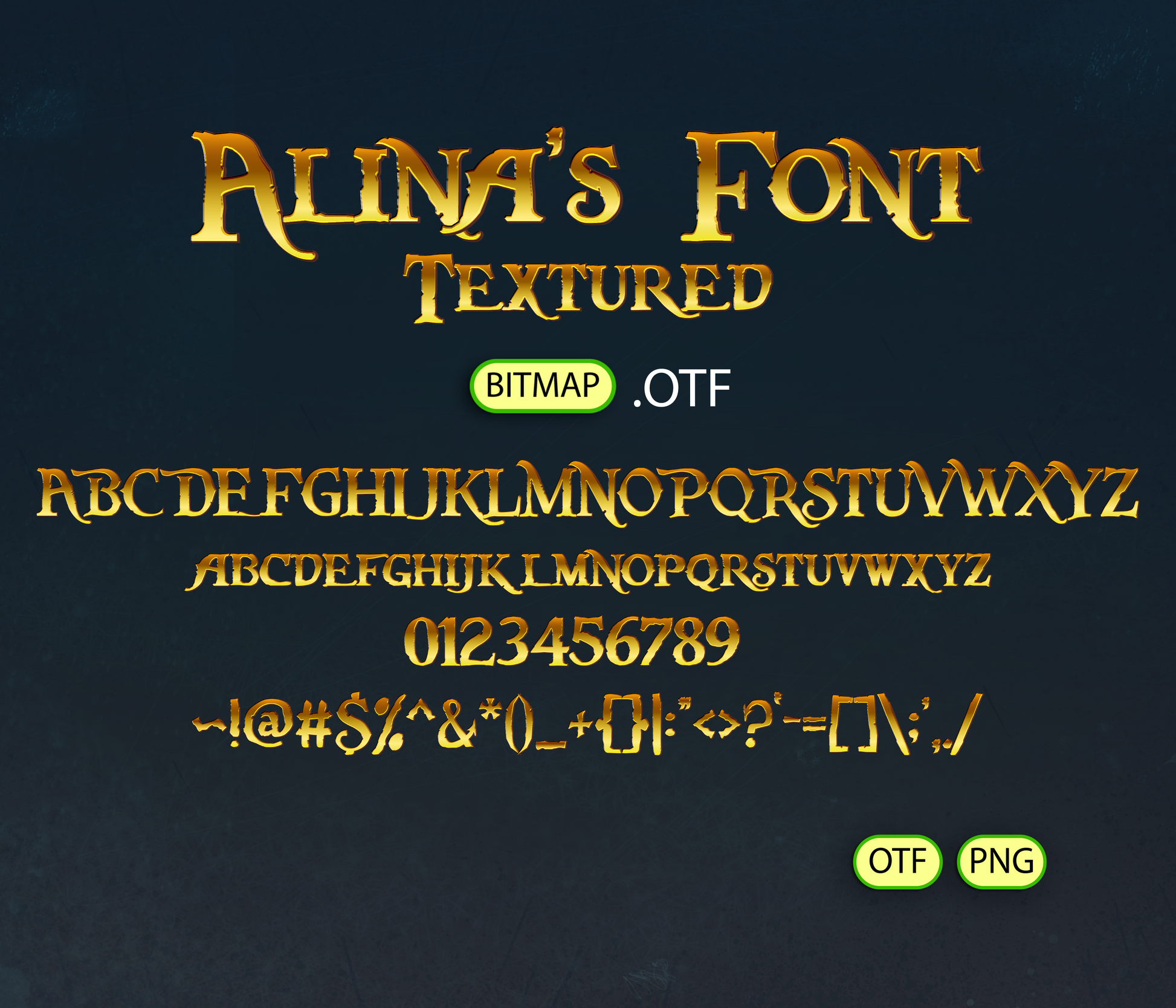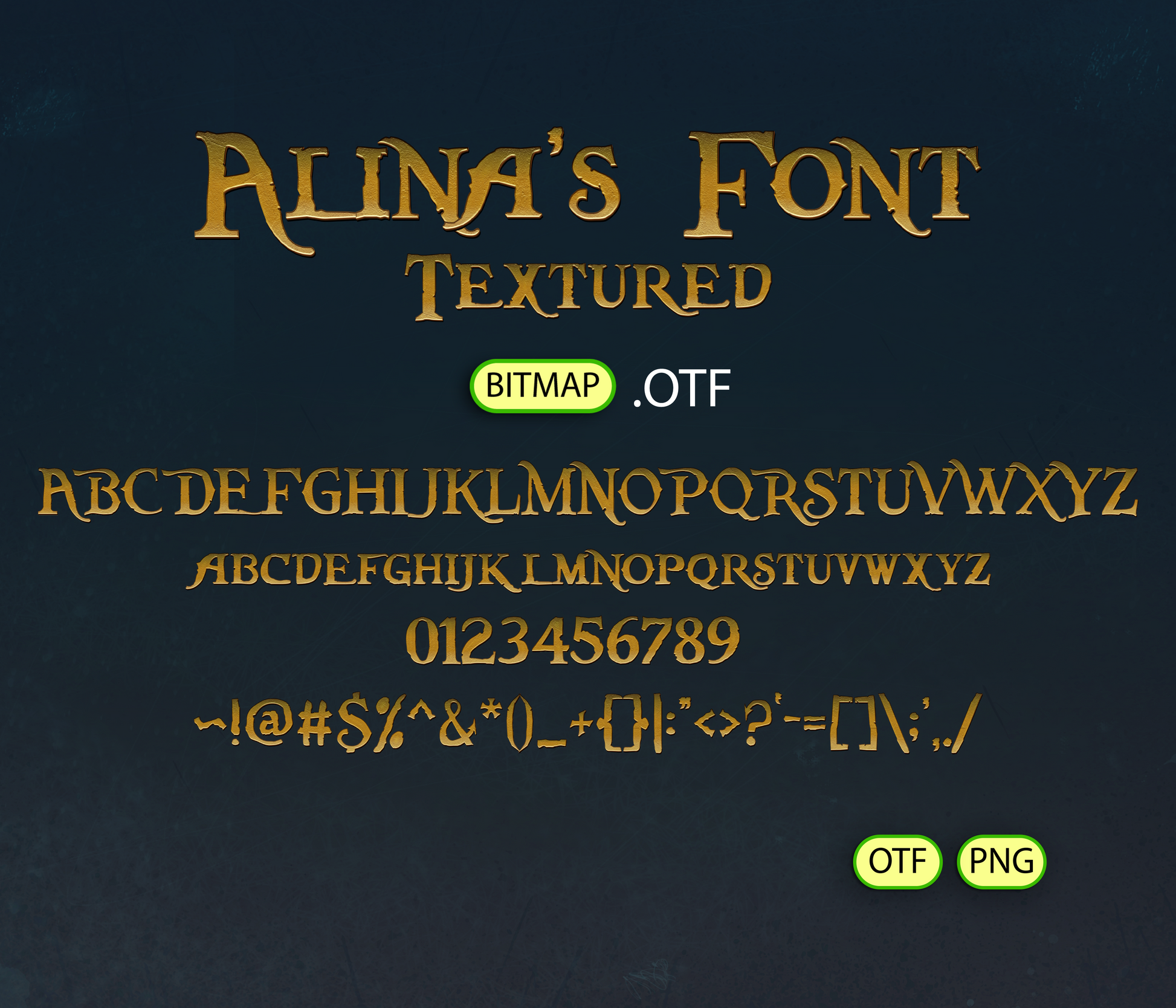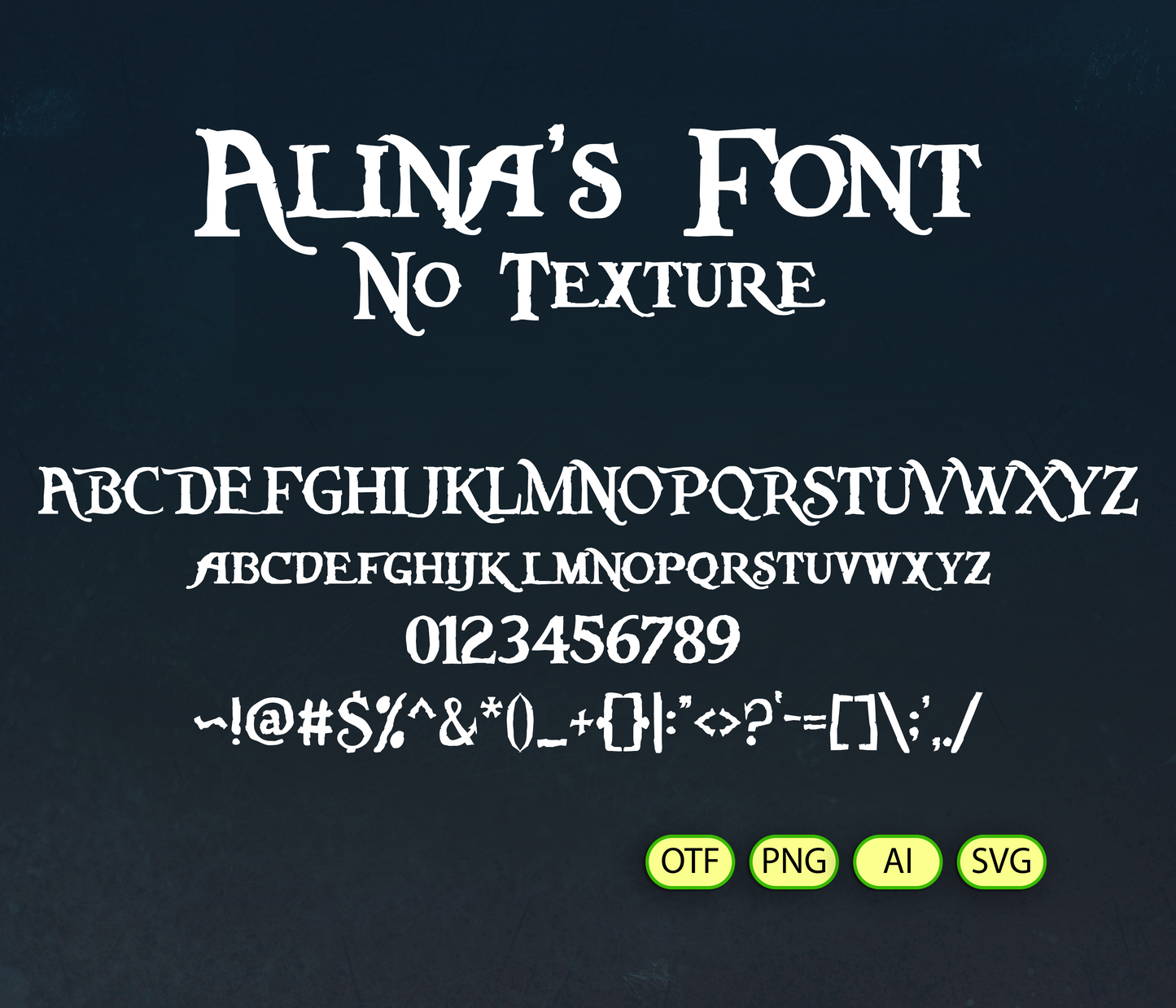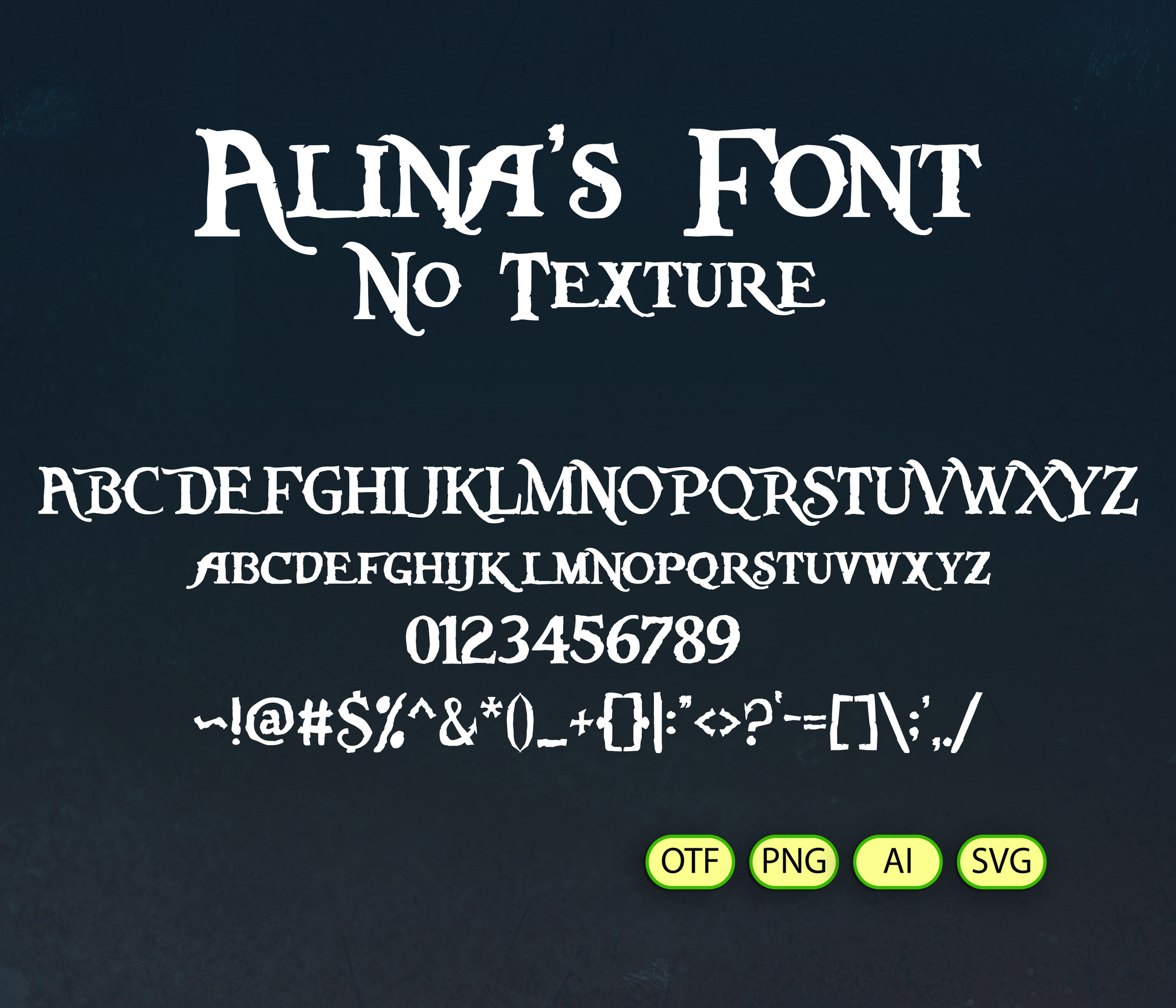
Buccaneer's Bounty Font Textured Bundle
Set sail on a typographic adventure with our Buccaneer's Bounty font, inspired by the swashbuckling world of famous pirate adventures. This font is not just letters and symbols; it's a treasure map leading to the high seas of creativity, echoing legendary tales of daring captains and their crews. Each character in this font is crafted to evoke the rustic, adventurous feel of a pirate's life, perfect for fans of beloved seafaring sagas.
What font is the Buccaneer's Bounty font?
I've taken great care to design a typeface that captures the essence of storied fonts seen in pirate-themed movies. From the weathered look of the letters to the ornate flourishes reminiscent of old maps and ship logs, each element of the font is carefully crafted to transport you to the golden age of piracy.
What You Can Do With the Buccaneer's Bounty Font?
This font package offers textured, colored, and non-textured variants to cater to a variety of design needs. Versatile and adaptable, this font is ideal for an array of creative endeavors, especially for Canva users who can easily incorporate it into their digital designs. The Buccaneer's Bounty Font with its free stickers section is more than just a typeface; it's a gateway to a world of imagination and fun.